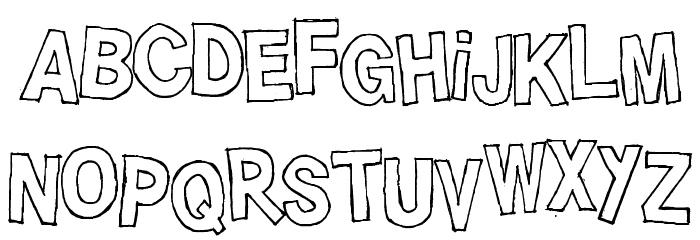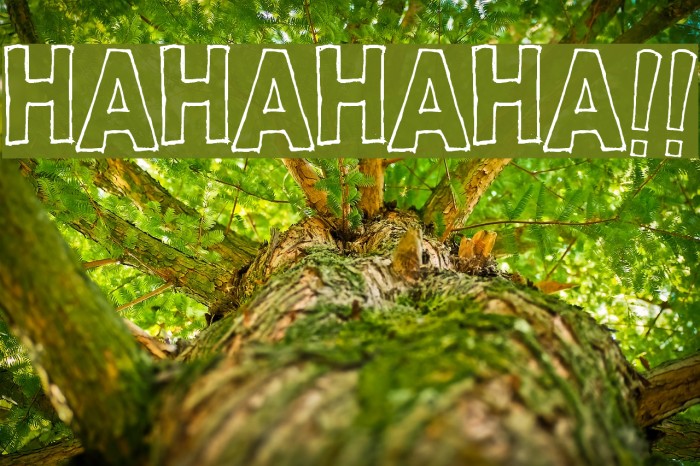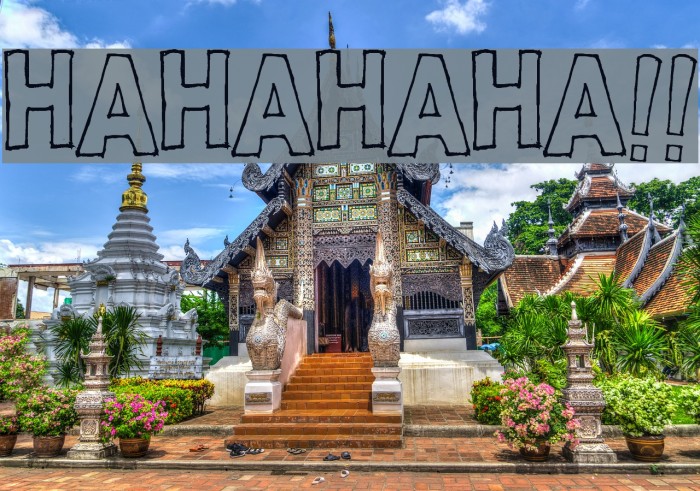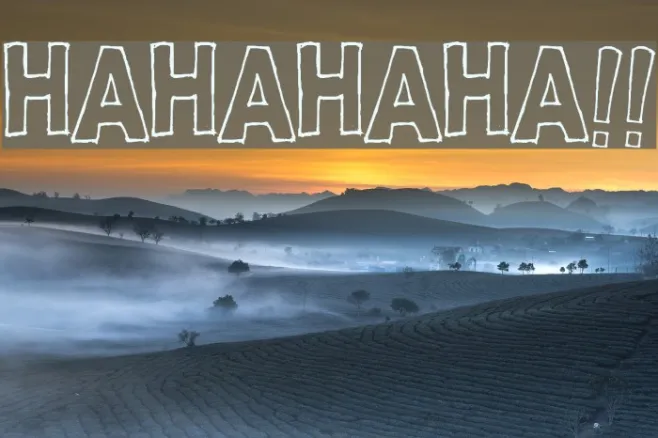
HAHAHAHA!! Font
This font features a playful and bold design, characterized by its hand-drawn, cartoonish style. The letters are outlined with a thick black stroke, giving them a doodle-like appearance. Each character has a slightly irregular shape, adding to the whimsical and informal feel. The uppercase and lowercase letters maintain a consistent style, with the lowercase letters being slightly smaller in size. The numbers and special characters follow the same playful design, making the font suitable for creative and fun projects. The overall look is casual and approachable, making it ideal for designs that aim to convey a sense of humor or lightheartedness.
A playful, hand-drawn font with a bold, cartoonish style.
- Proposed Projects: Ideal for children's books, comic strips, playful branding, and casual invitations.
- Overall Style: Playful, Cartoonish